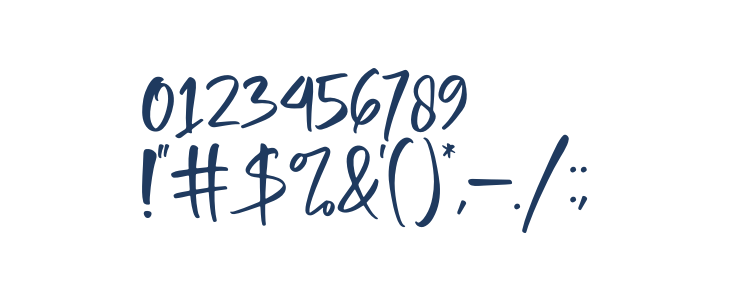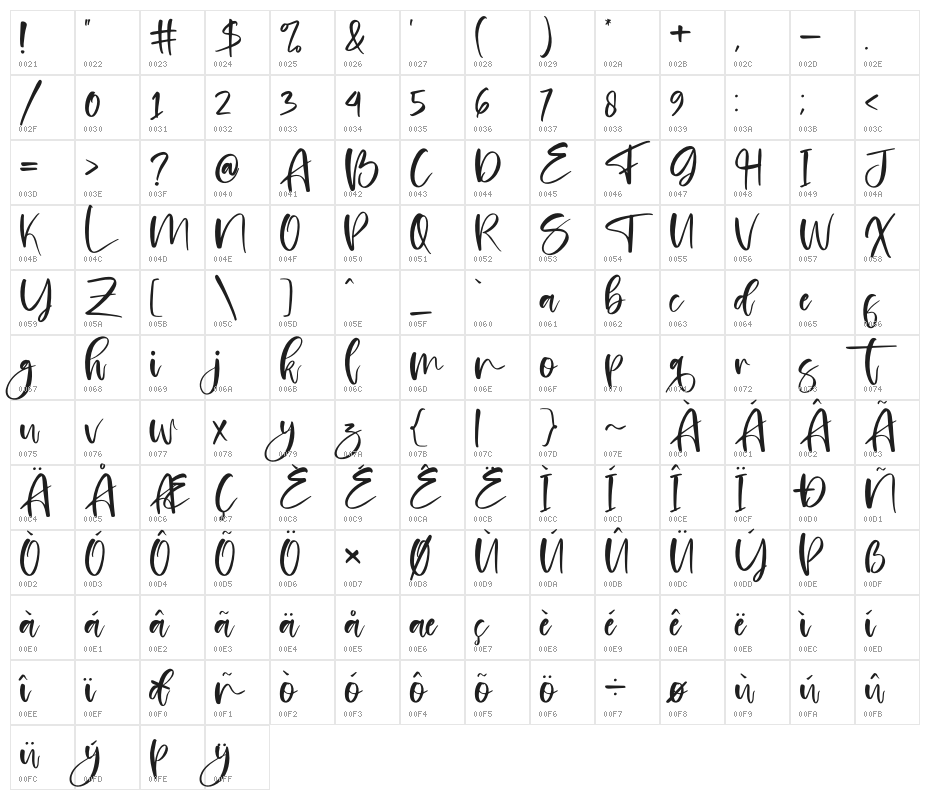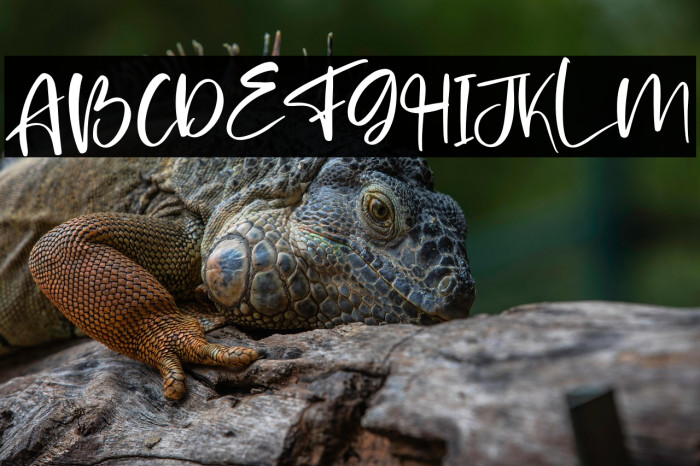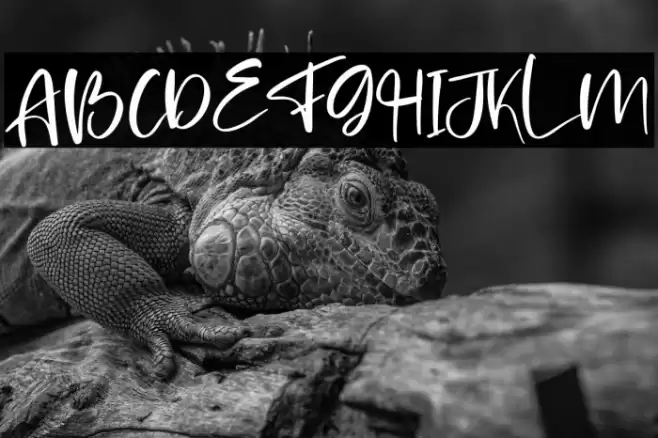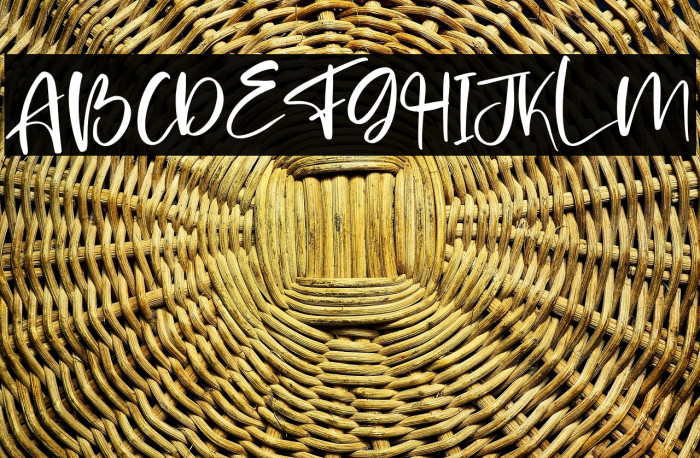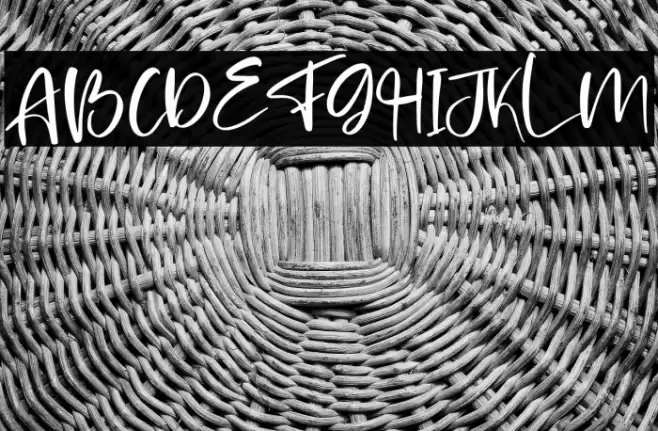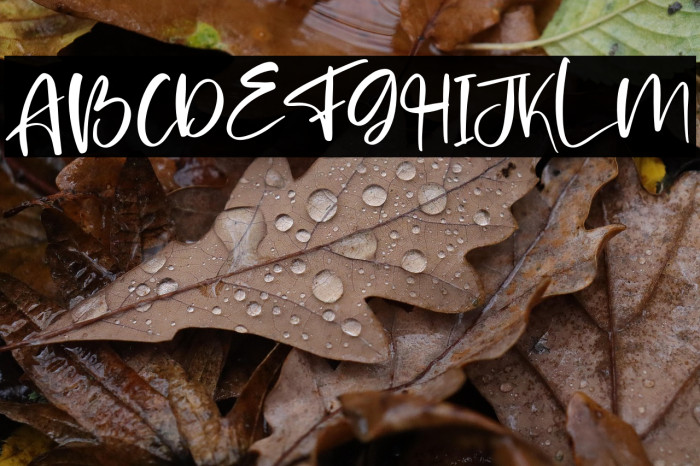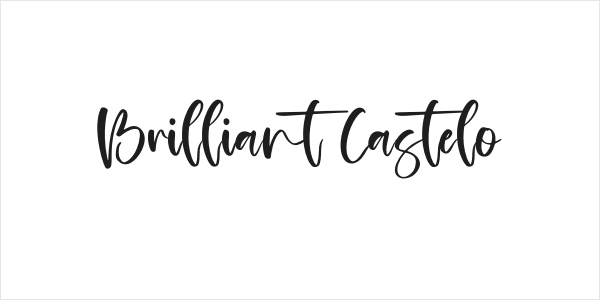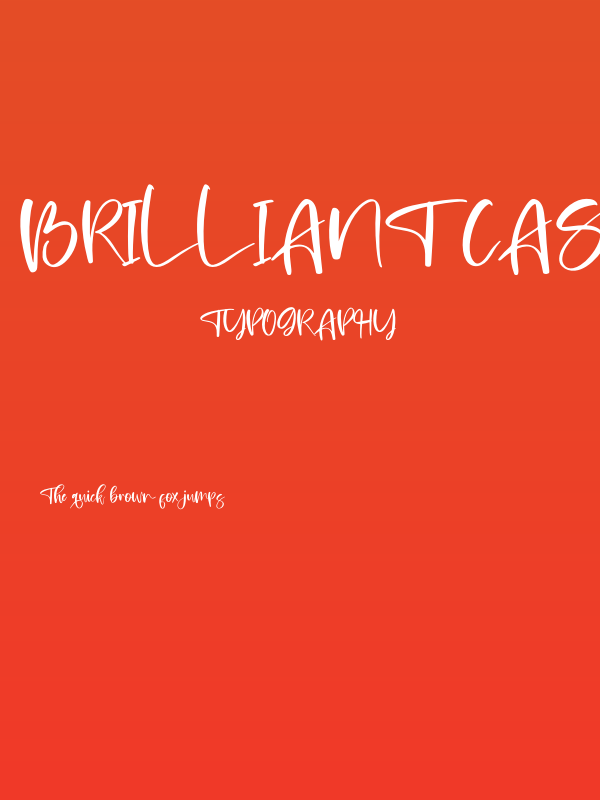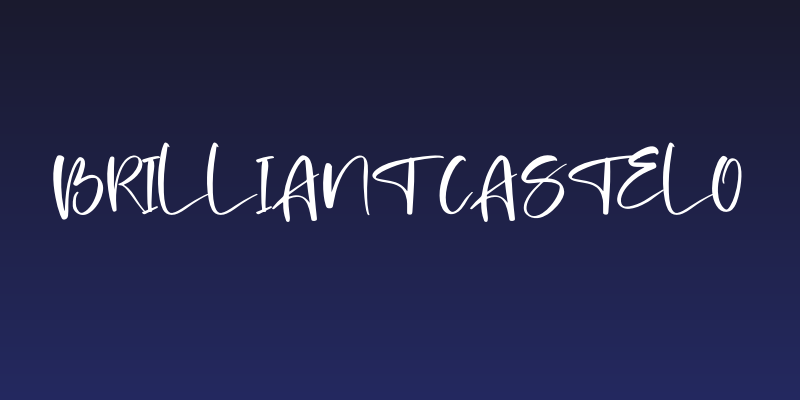
Brilliant Castelo Font
Brilliant Castelo Description
This font exudes a lively and energetic vibe with its bold, flowing script style. The letters are characterized by their sweeping curves and dynamic strokes, giving a sense of movement and fluidity. The uppercase letters are particularly striking, with dramatic flourishes that add a touch of elegance and flair. The lowercase letters maintain a consistent style, complementing the uppercase with their own graceful loops and curves. The numerals and special characters are equally expressive, ensuring a cohesive look across all elements. This font is perfect for projects that require a personal, handwritten touch, while still maintaining a sense of sophistication.